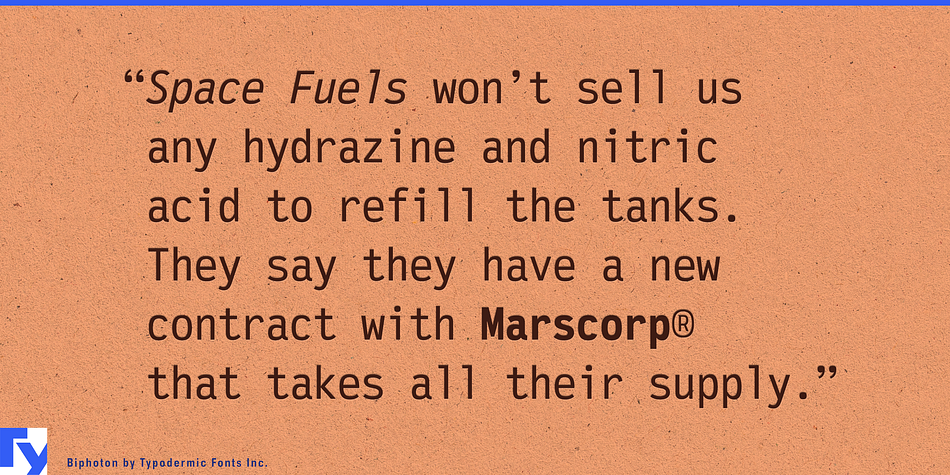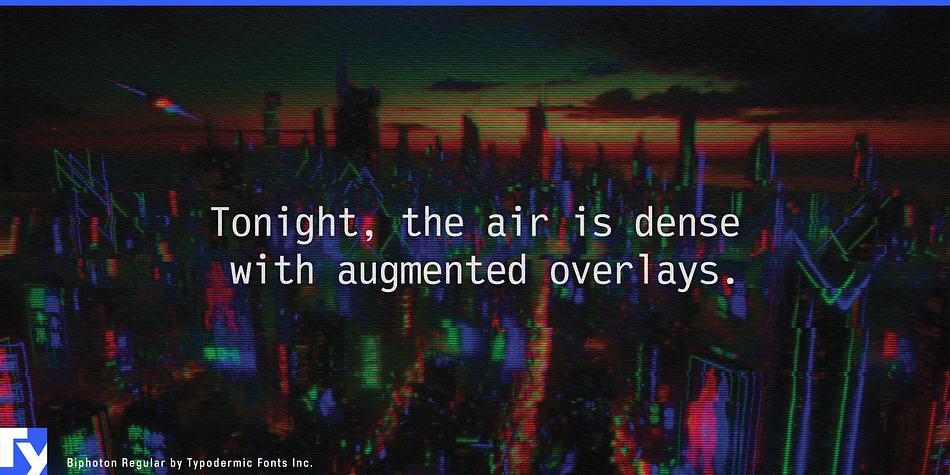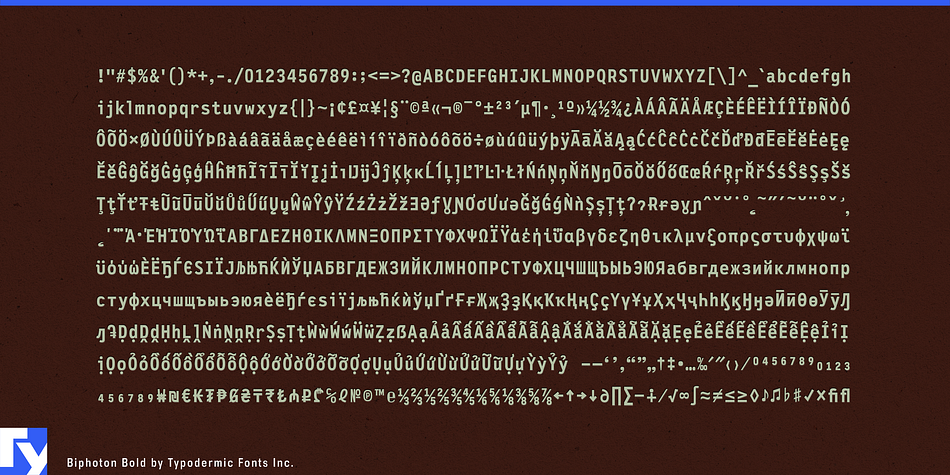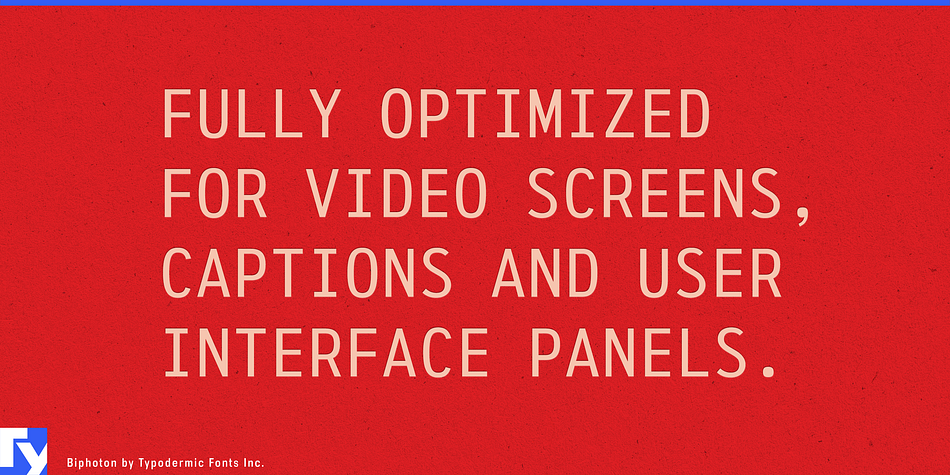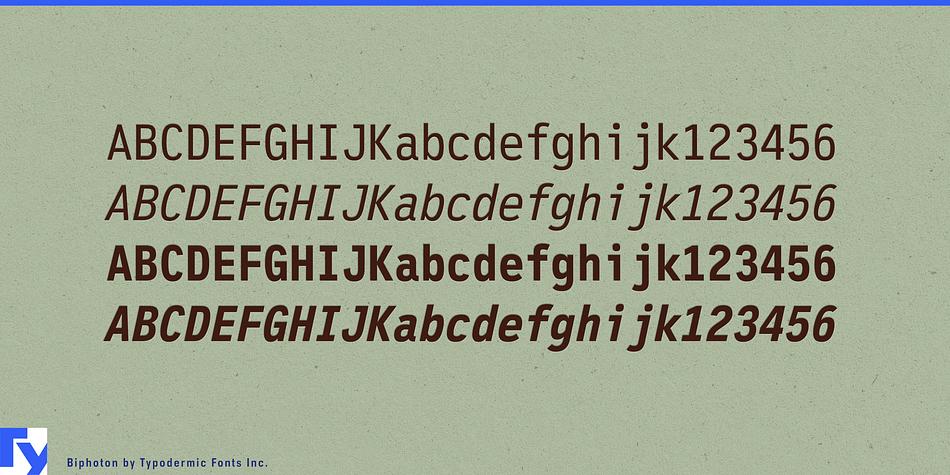
Designed by Ray Larabie, Biphoton is a sans serif font family. This typeface has four styles and was published by Typodermic Fonts Inc.
Biphoton is a monospaced sans-serif typeface, designed for screen captions and UI applications. It has the same proportions as Letter Gothic 12 Pitch and can be substituted in applications where that font has been specified. While the aforementioned typeface was designed to function in print, Biphoton is fully focused on unambiguous screen performance. Biphoton’s character set covers most Latin-based languages as well as Vietnamese, Greek and Cyrillic. A breadth of currency symbols are incorporated as well as numeric ordinals, primes and common precomposed fractions. Biphoton is available in Regular, Italic, Bold and Bold-Italic in TrueType—contact Typodermic Fonts for other formats.